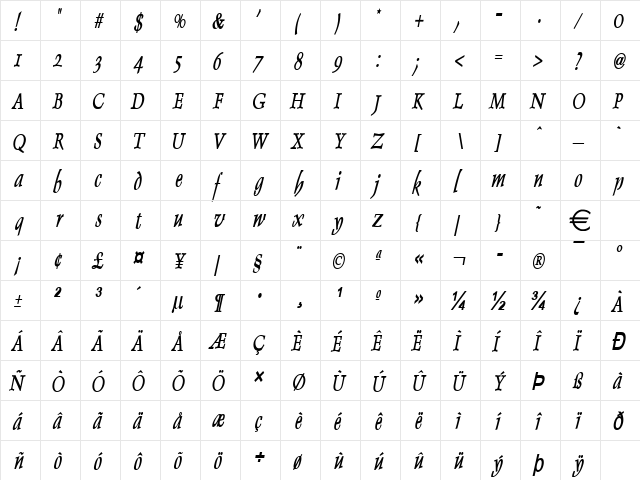
DolphinThin BoldItalic Font Preview
Design Context for DolphinThin Typeface
DolphinThin takes a measured approach to typography — its balanced proportions and neutral character make it a reliable workhorse for both digital and print work. Its italic angle brings a sense of urgency and motion to the letterforms. The heavy weight commands attention and anchors typographic hierarchies.
Pro Tip: Try DolphinThin for annotation and caption copy alongside an upright companion — the contrast in angle creates a dynamic but ordered typographic system.